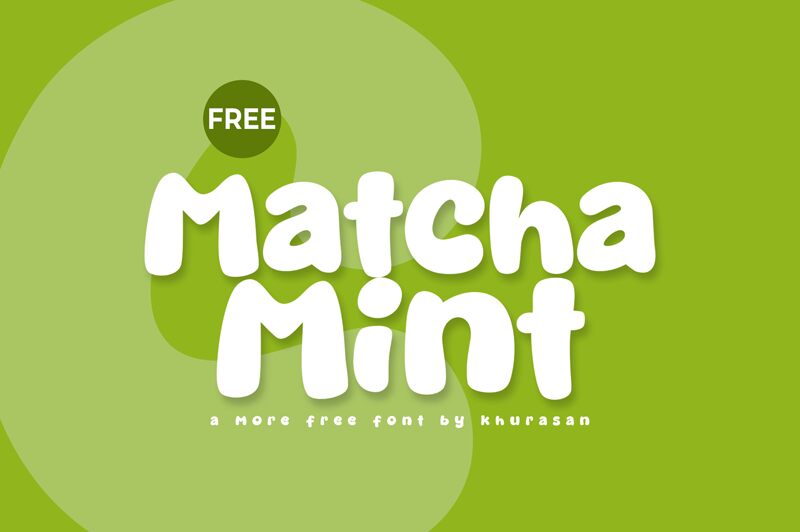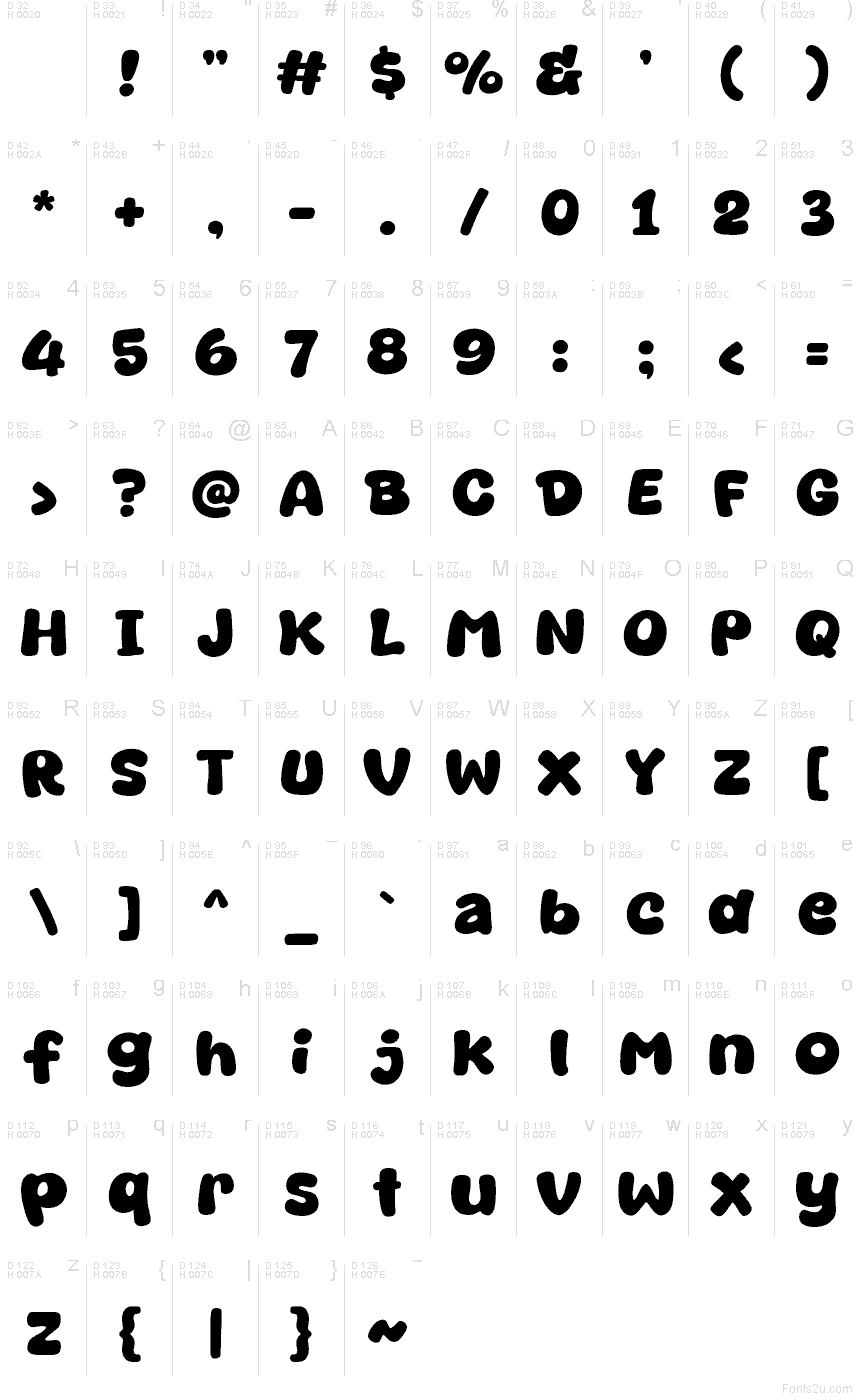
Matcha Mint is a free cartoon display font by Khurasan, shaped with chunky, softly rounded letters and an easy hand-drawn bounce. Its broad forms, uneven curves, and playful joins create a friendly, sticker-like presence that keeps the mood bold but relaxed.
Use this free font for snack packaging, children's posters, cafe signage, and cheerful book covers. It also works well for short headlines and title cards, where the generous weight and loose rhythm can carry the message with very little supporting artwork.
Matcha Mint font presentation and specimen